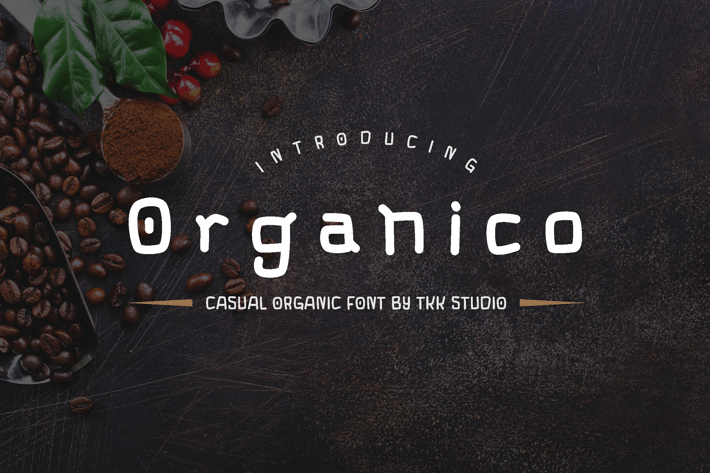
Organico - Modern Sans Serif font
ORGANICO – A Warm & Authentic Typeface for Themed Restaurants & Artisan Cafés
Organico is a casual display typeface with rounded terminals, soft curves, and a calm, earthy flow—perfect for coffee shops, eco products, and warm branding designs. It brings a gentle boldness to menus, packaging, or quotes, balancing approachability with visual clarity.
This font’s relaxed, clean vibe works beautifully for sustainable brands, artisan coffee packaging, or lifestyle content on Instagram. Its smooth sans style feels organic, natural, and easy to read, making it ideal for storytelling that needs to feel grounded yet engaging.
Whether you're building a brand for a specialty roastery, designing a product label for organic goods, or laying out a coffee shop menu—Organico helps deliver messages with soul and softness. It appeals to designers looking for typography that evokes warmth, trust, and handmade charm, while still delivering modern versatility.
Use Organico in coffee quotes, digital ads, brand identities, lifestyle packaging, and more. It tells your story with every rounded corner and steady baseline.
Key Features :
Natural & Approachable Style
- Inspired by coffee culture, eco brands, and artisan packaging
- Rounded letterforms create a soft, welcoming feel
Built for Branding & Merch
- Great for logos, product packaging, labels, bags, t-shirts, and menu designs
- Harmonious in social posts and lifestyle blogs
* Smooth Structure & Balance
- Gentle contrast with strong legibility
- Ideal for earthy and calm design themes